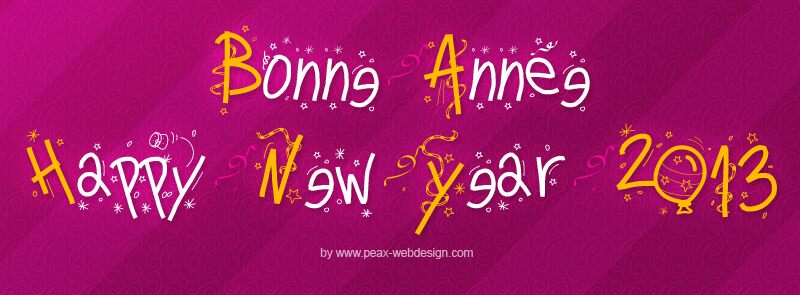
PW Happy New Year by Peax Webdesign is a free festive decorative display font with tall, uneven letters, abrupt changes in stroke width, and a deliberately lively silhouette. Tiny stars and curling streamers thread through the lettering.
Its New Year celebration theme makes it a natural fit for party posters, invitations, and event graphics, where the scattered ornaments can echo confetti and fireworks. Greeting cards and seasonal packaging can use the font as part of the illustration itself, turning a product name or holiday message into a compact piece of festive branding.